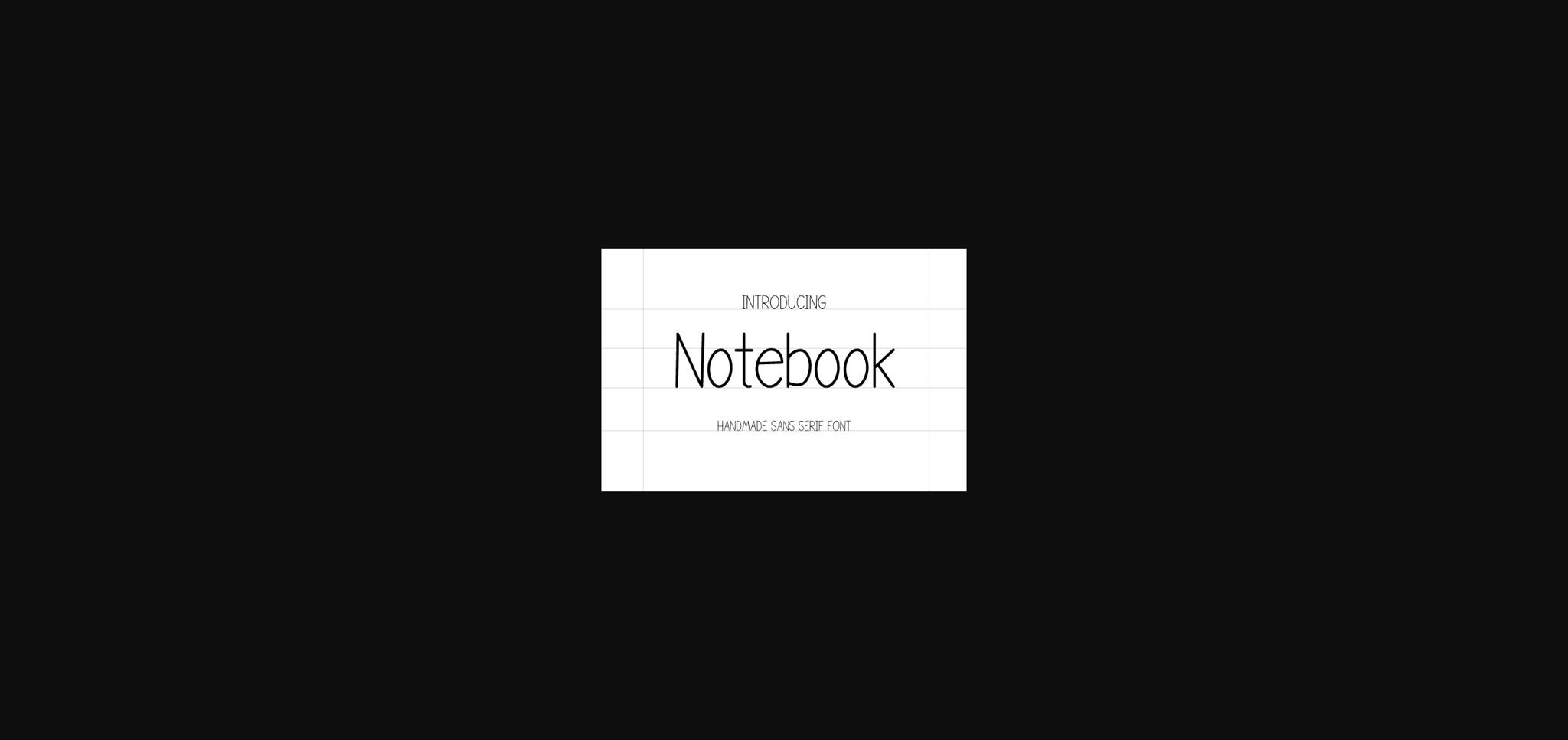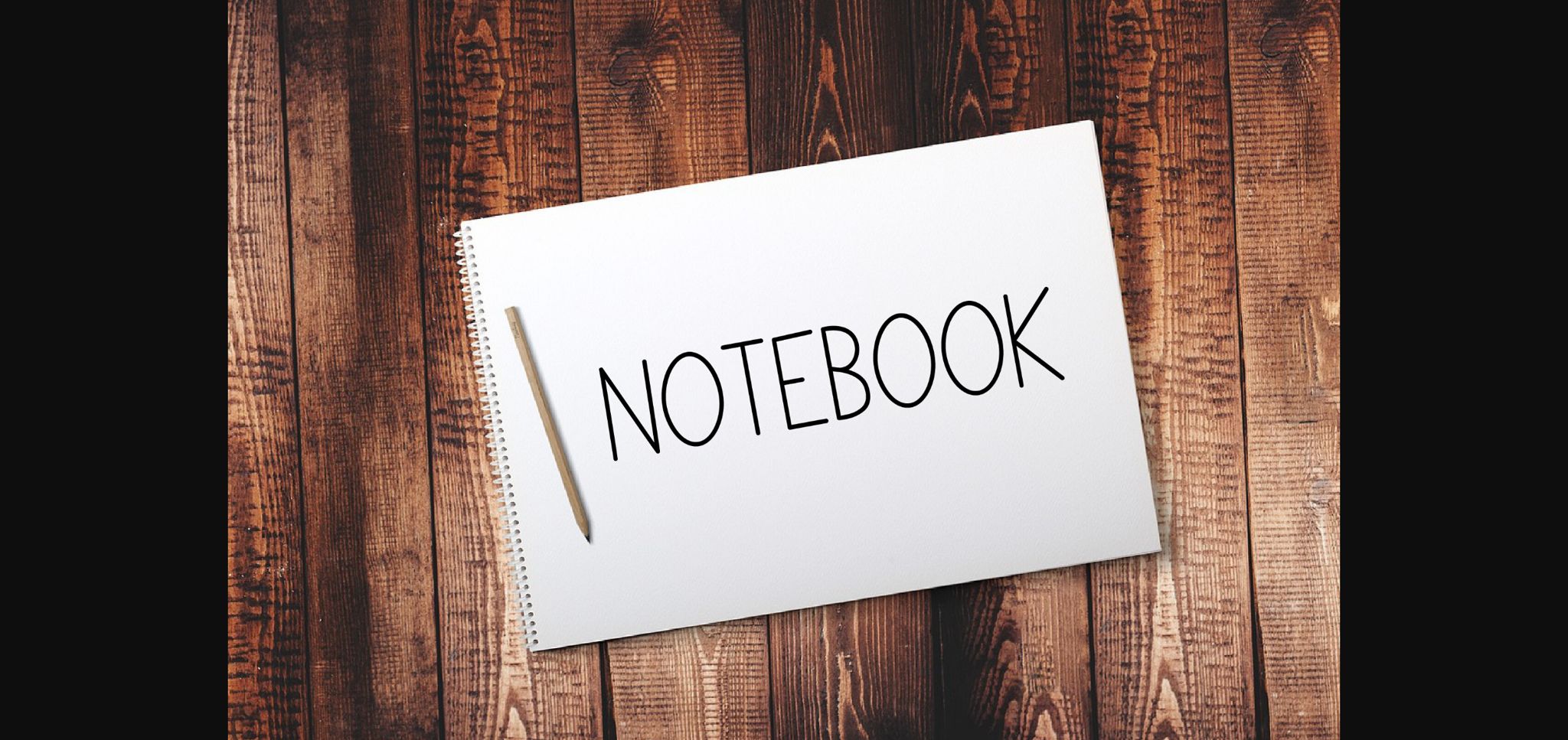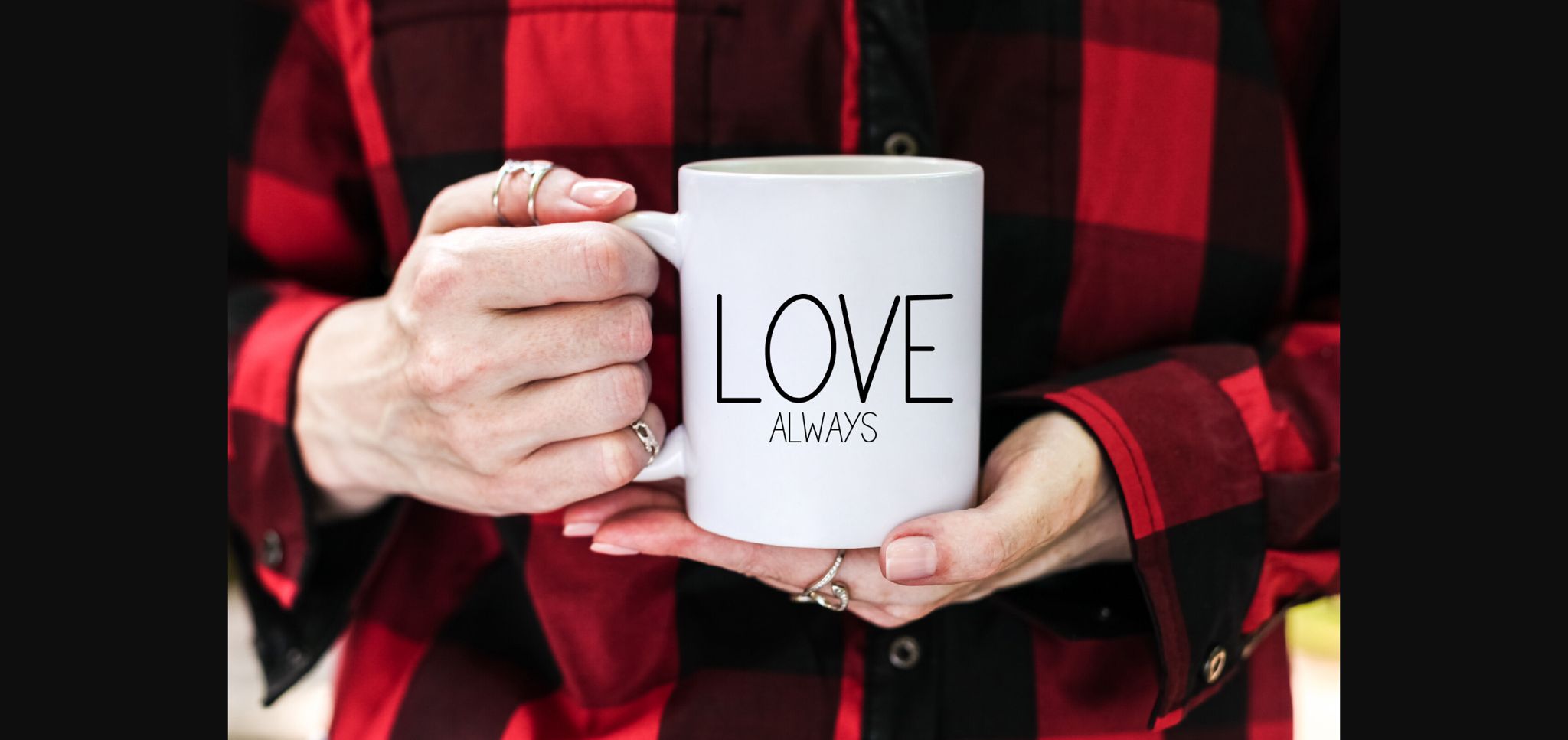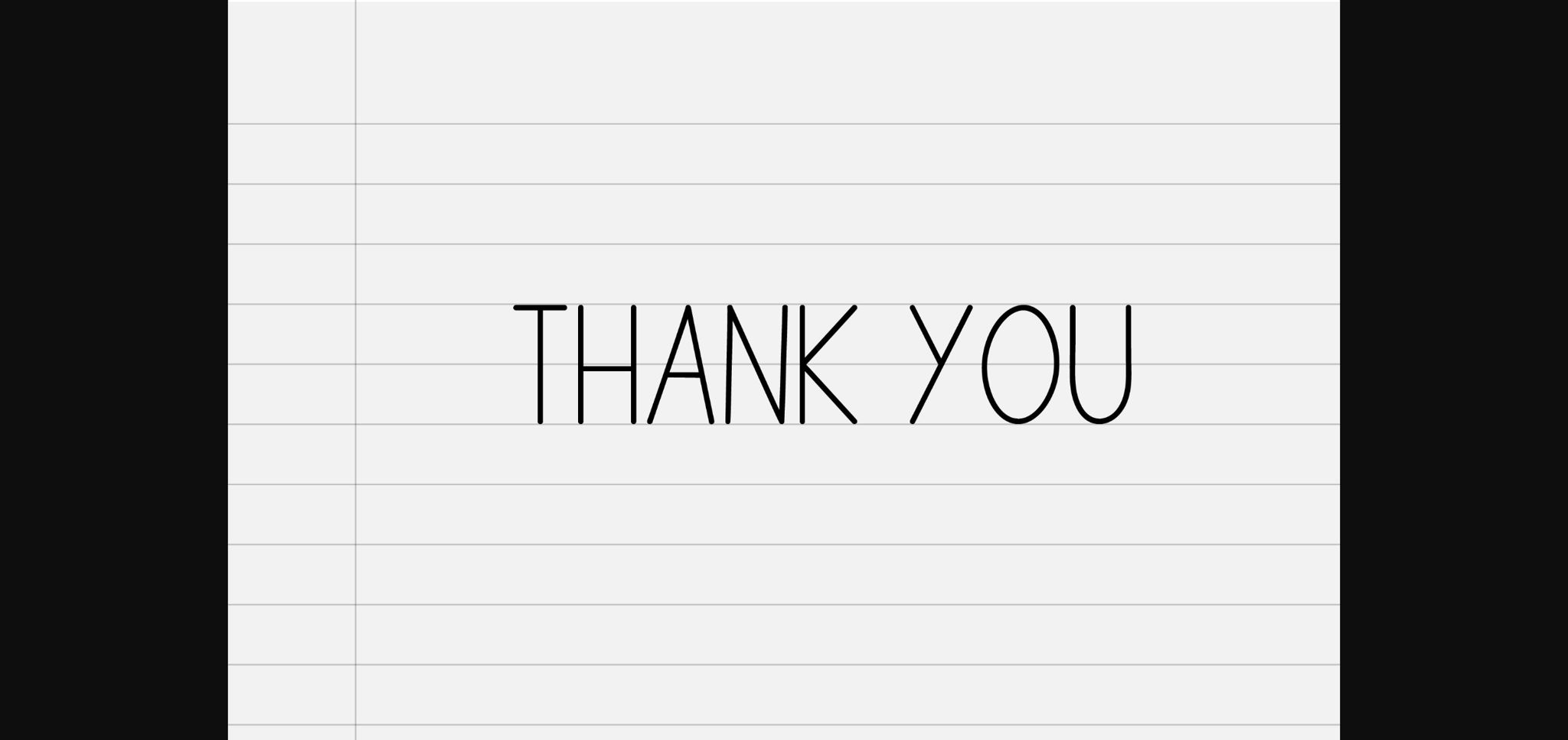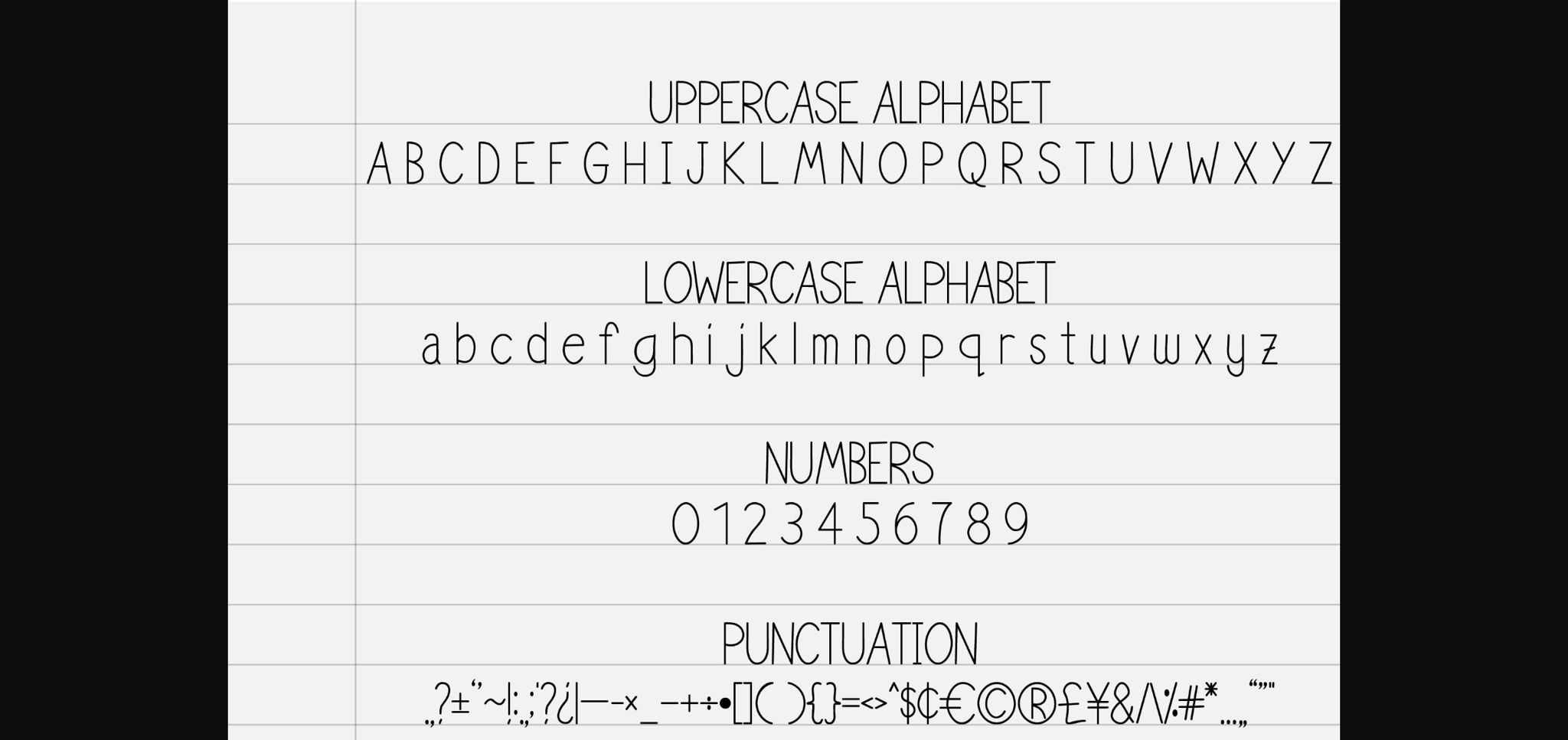
Notebook Font
Write beautifully and neatly with this Notebook font. Notebook is a handmade sans serif font. This font makes your writing more beautiful and legible. Add it to your project with confidence and enjoy the results.(This font file includes TTF and OTF files)